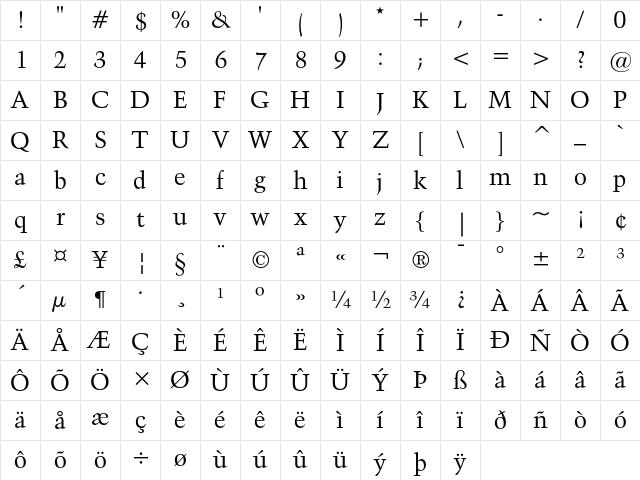
Kuenstler 480 Regular
Complete Kuenstler 480 Regular glyph index. Displaying only characters natively supported by Kuenstler 480 Regular font.
Design Context for Kuenstler 480
Kuenstler 480 is a composed and adaptable typeface that performs quietly and consistently across a wide range of design contexts.
Pro Tip: Use Kuenstler 480 in both headline and body roles to test its range before committing to a single application.